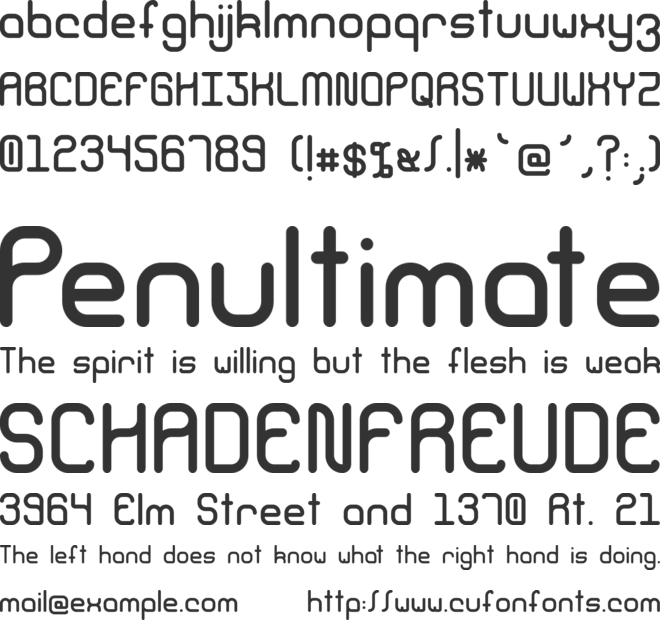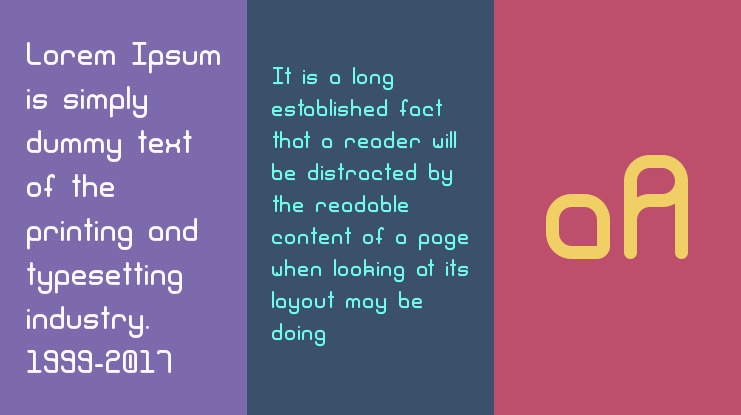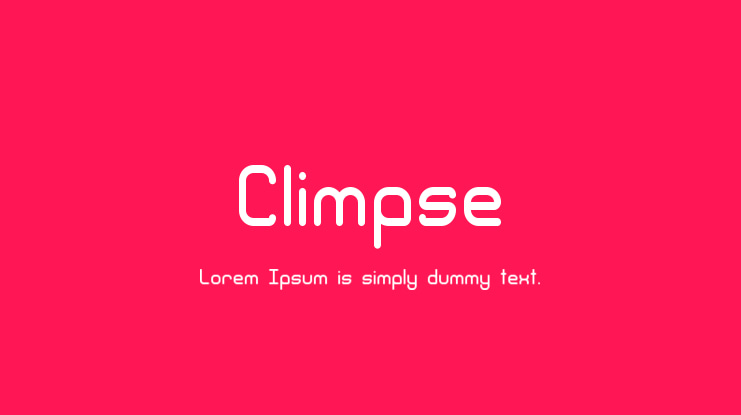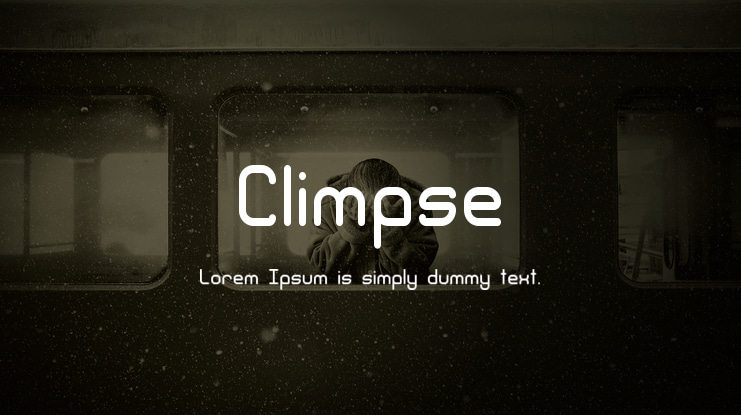
Climpse Font
Climpse is a title & text font aiming to display texts in a light and fluid way on printed media. It may be used on digital design but might be hard to use at small size.
Created by DidouPh aka Pierre-Henri RAMBOZ (http://www.matoilnet.com) with FontForge 2.0 (http://fontforge.sf.net)